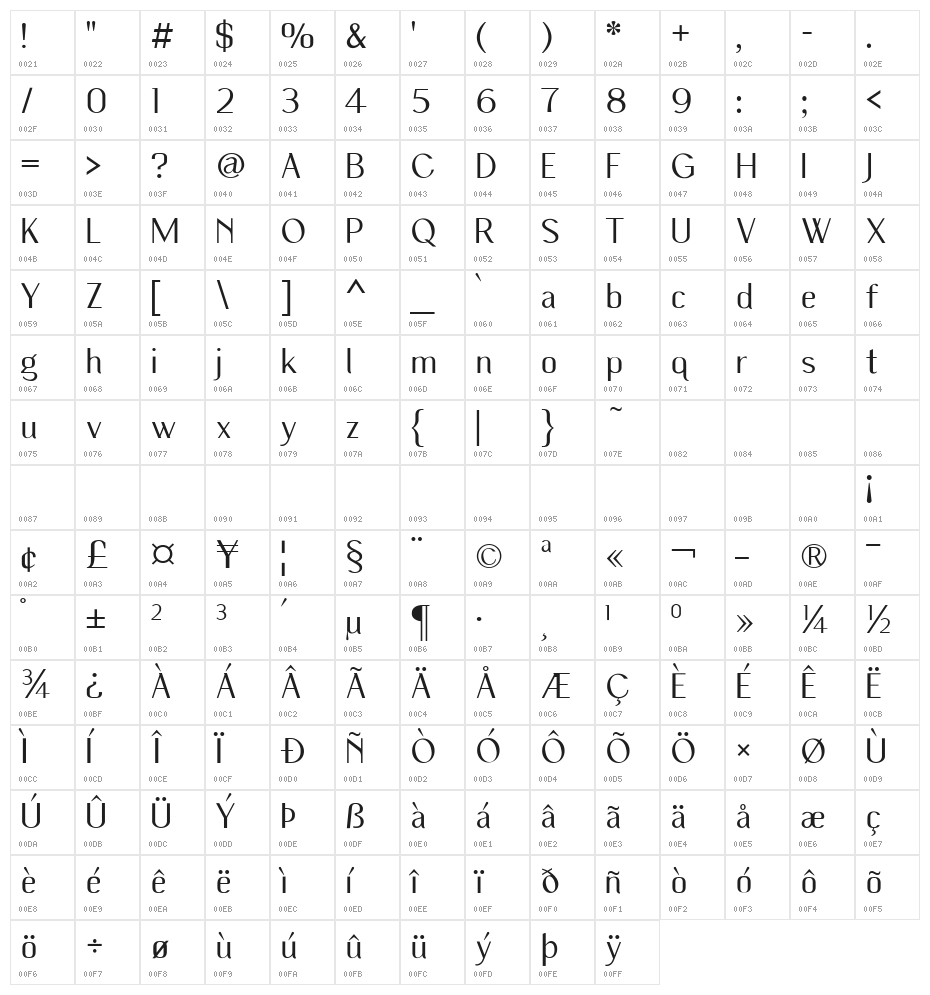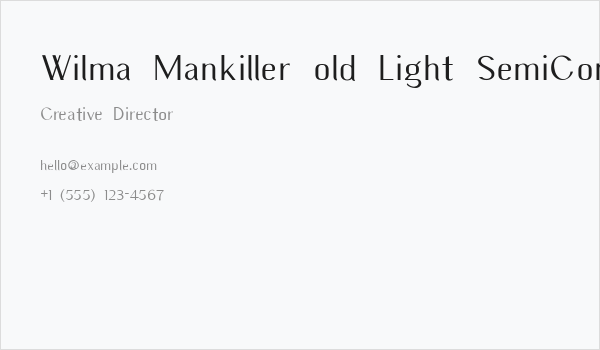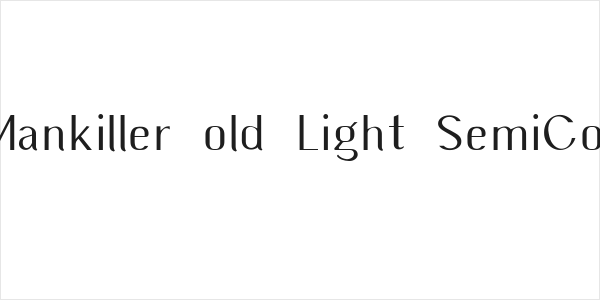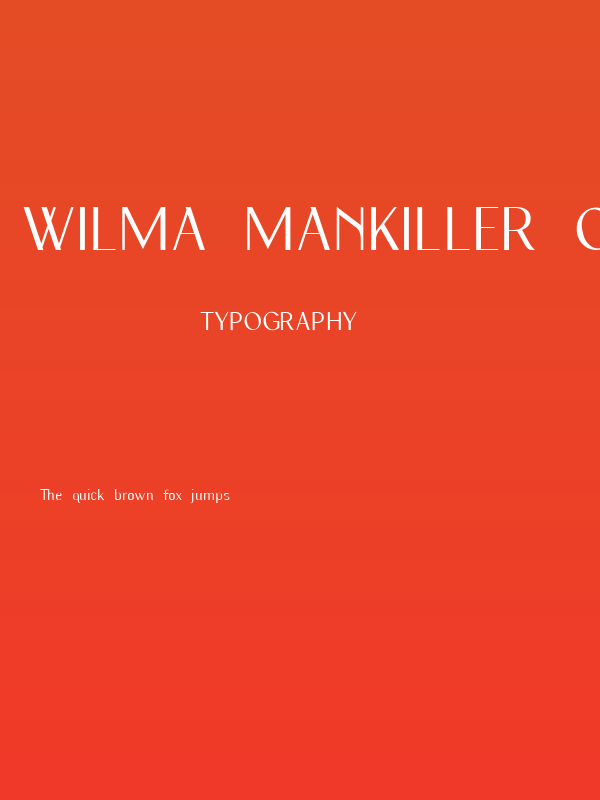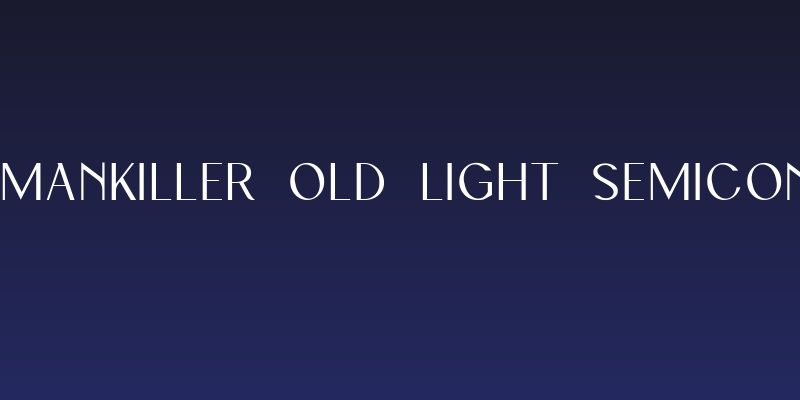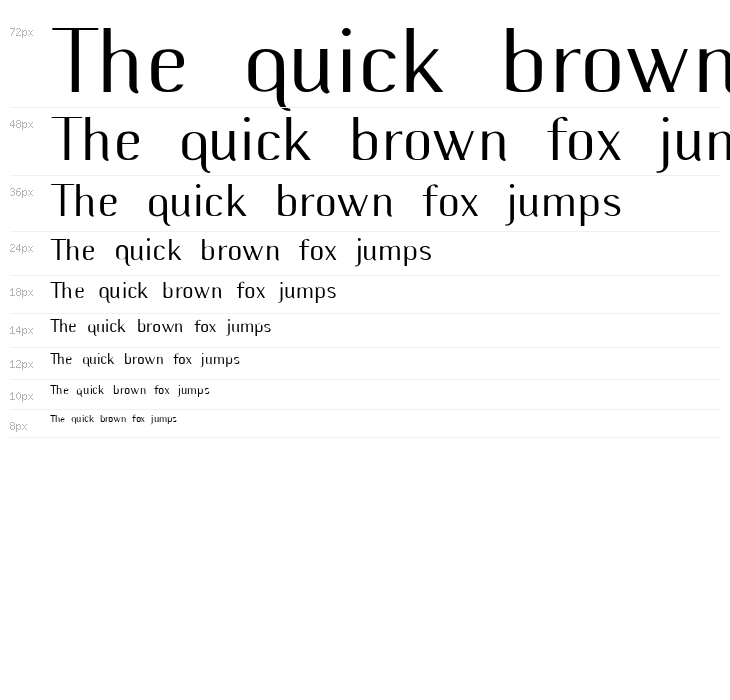
Wilma Mankiller old Light SemiCondensed Font
Wilma Mankiller old Light SemiCondensed Description
This font features a clean and modern design with a semi-condensed structure, offering a sleek and professional appearance. The characters are crafted with precision, showcasing a balance between geometric and humanist elements. The uppercase letters are tall and elegant, while the lowercase letters maintain a consistent flow, enhancing readability. The numerals are distinct and well-proportioned, making them suitable for various applications. Special characters are thoughtfully designed to complement the overall aesthetic, ensuring versatility in usage.